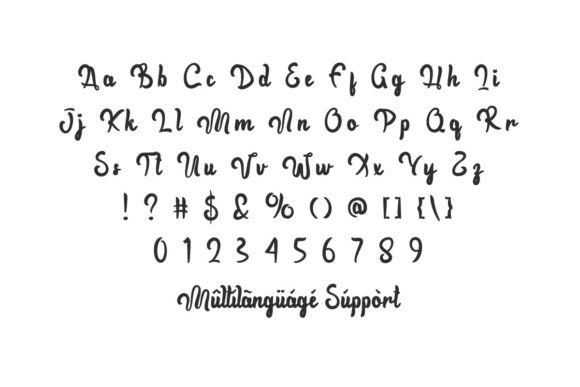
Every Week Font
Every Week Font is an elegant calligraphy created by NihStudio. This font uses a thick brush which is irregular but makes it stand out, will be good for your business brand, covering industry : bakery, boutique, cosmetic, event planner, fashion, florist, spa, etc.What inside the download files: OTF TTF WOFF Help File Every Week Font will be great for label, brand logo, business card, headline, invitation, packaging design, price tag, signage, stationery, and anything that requires a natural touch of calligraphy. Perfectly crafted to bring aesthetics to every design created and make it easy to read.Every Week Font comes with a full set of Uppercase and Lowercase Basic Characters, Number, Punctuation, Symbol, Swoosh, and also supports multilingual characters. Ready to use both on Windows machine or Mac with simple installations. It’s tested to work well in the Adobe Apps (Illustrator, Adobe InDesign, Adobe Photoshop) CorelDraw, and others. PUA Encode Characters means you can access all the glyphs and swashes with ease.